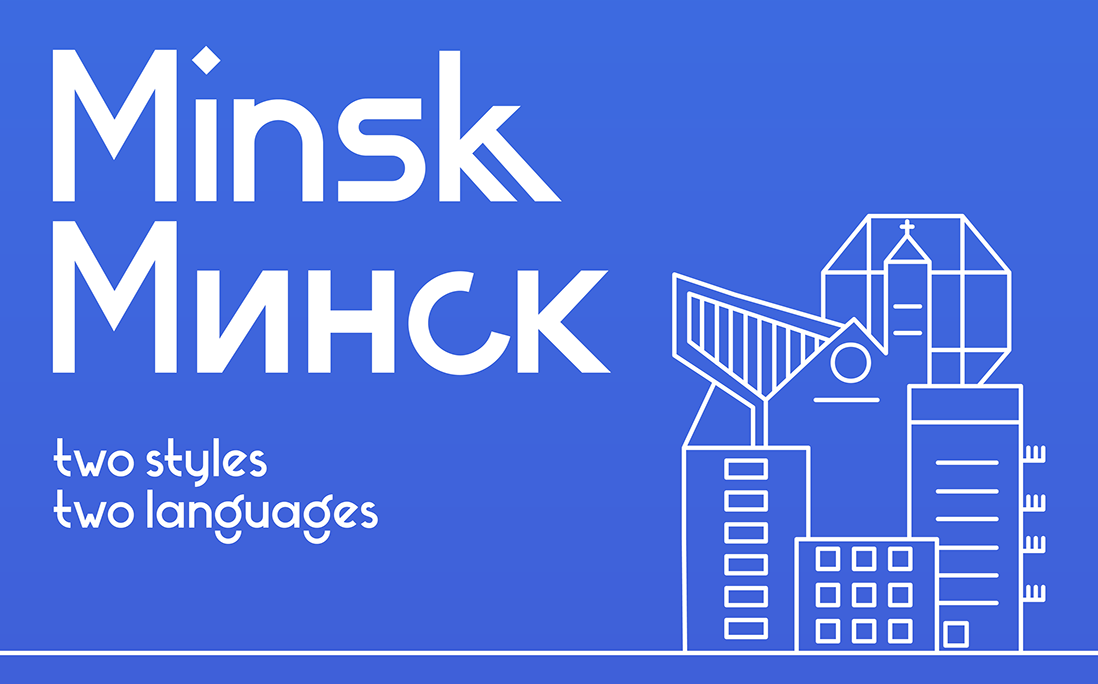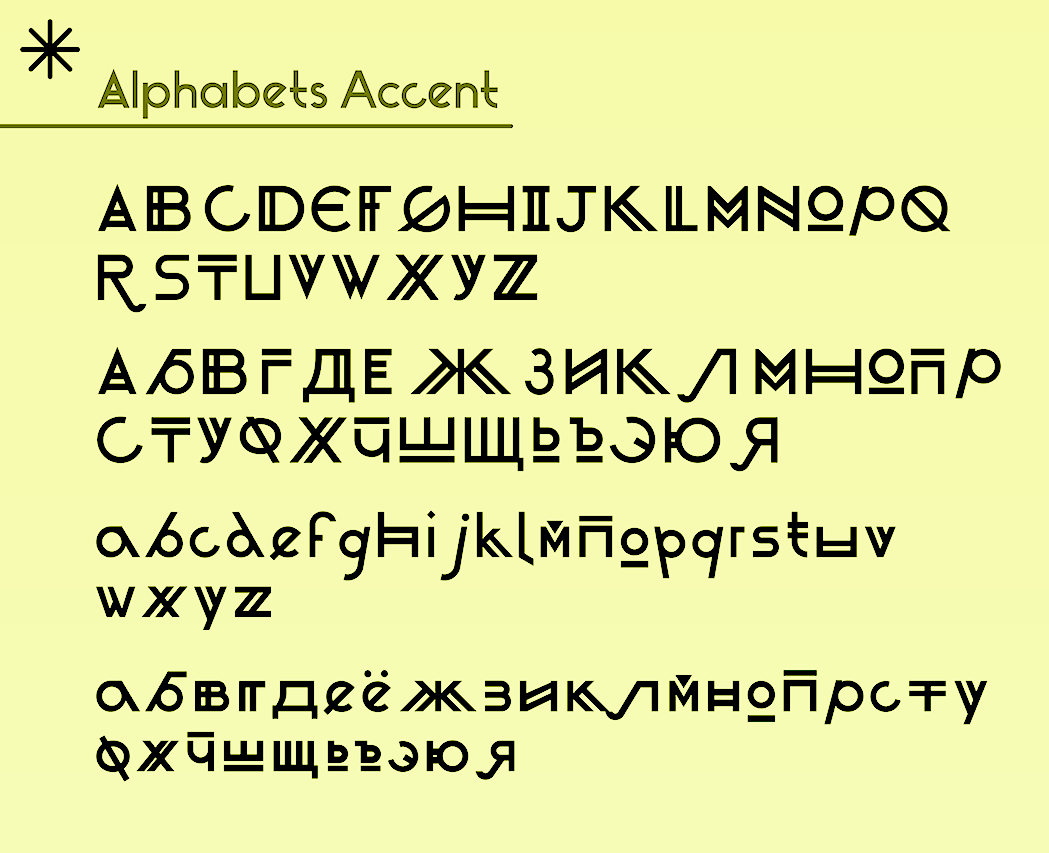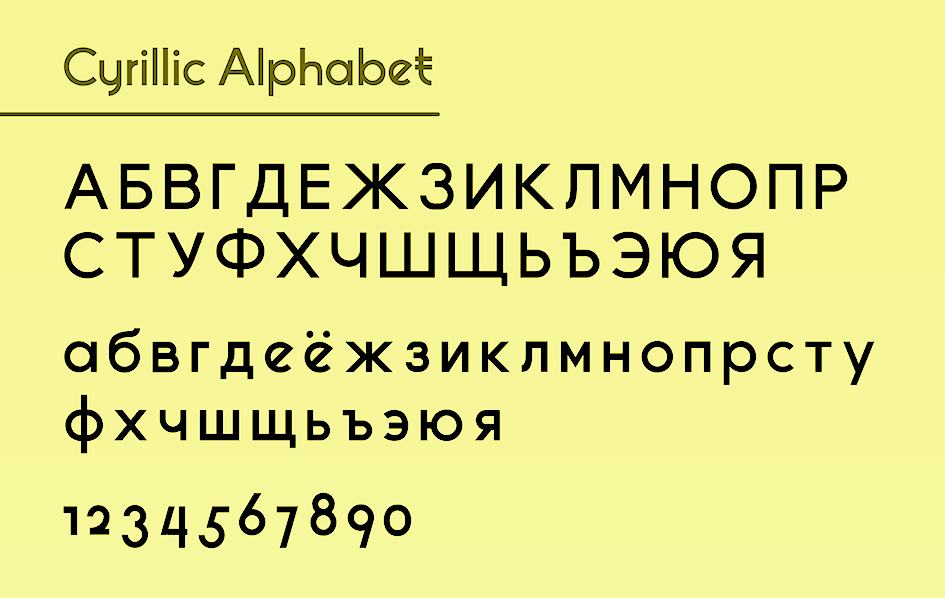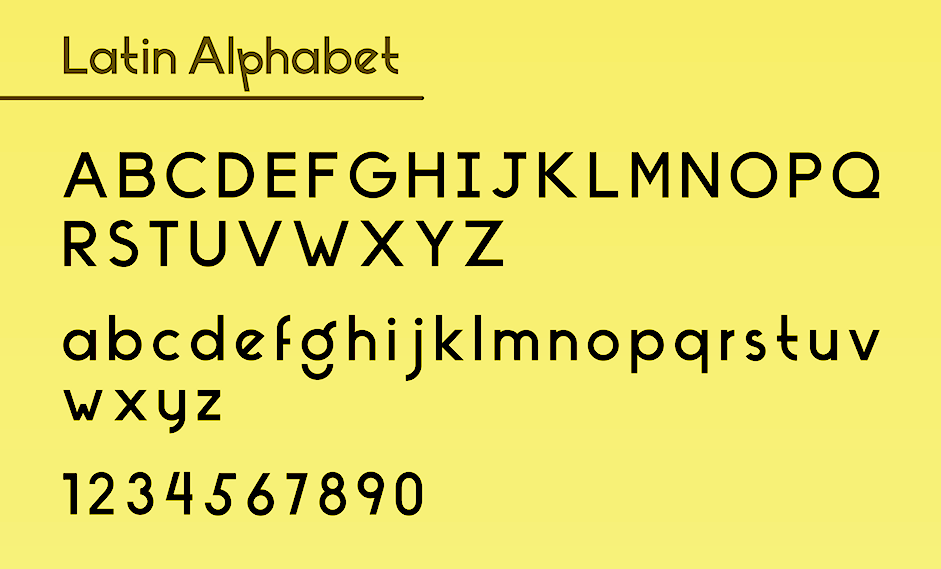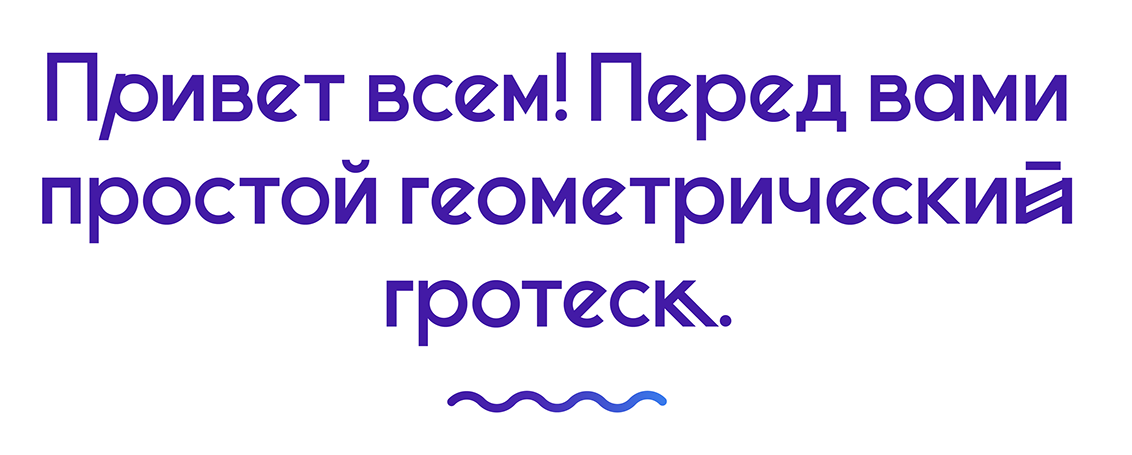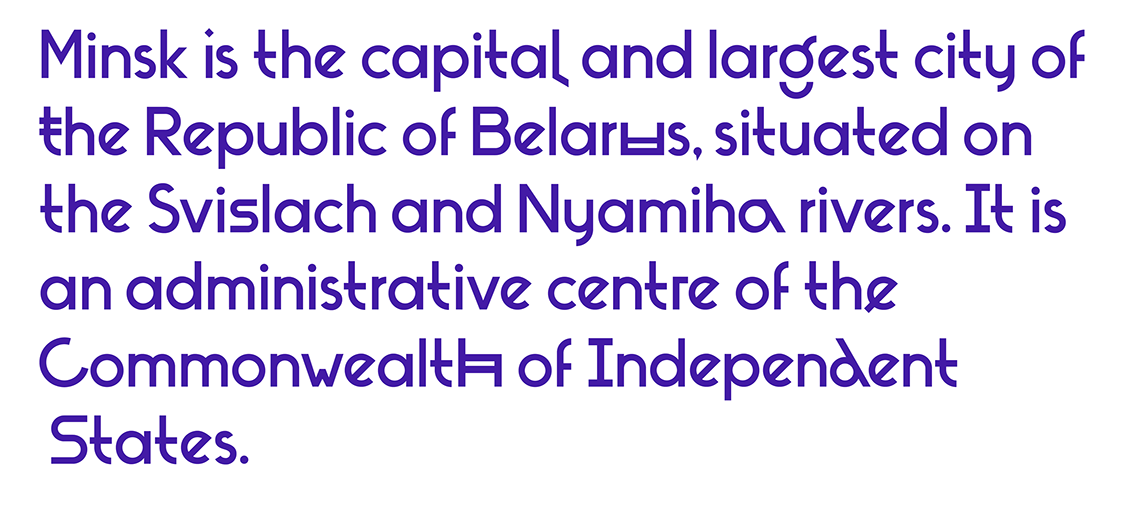
Minsk
Minsk (2016) is a free Latin / Cyrillic avant garde typeface accompanied by the hipster typeface Minsk Accent (2016). It was created by a student-designer who, at the time, was based in Minsk, Belarus, but wishes to remain anonymous. |